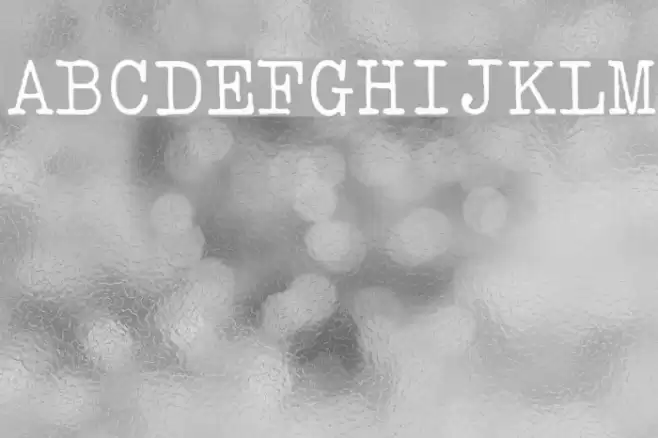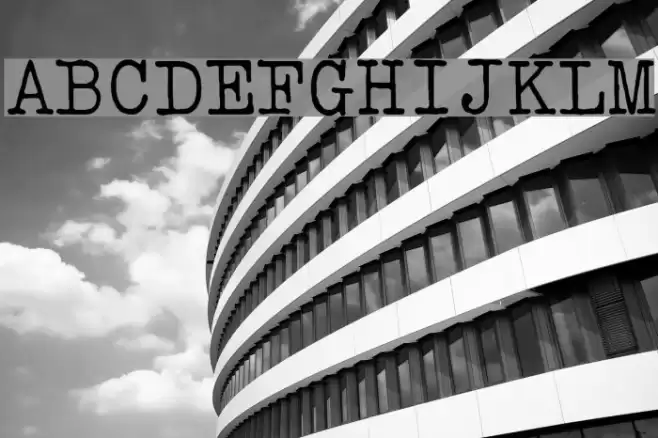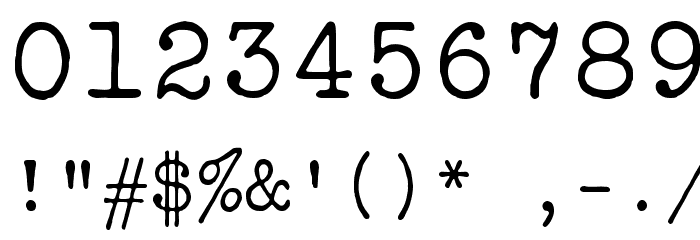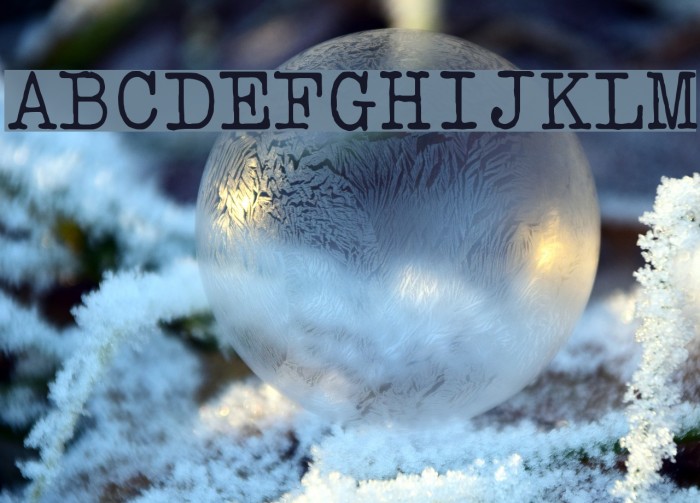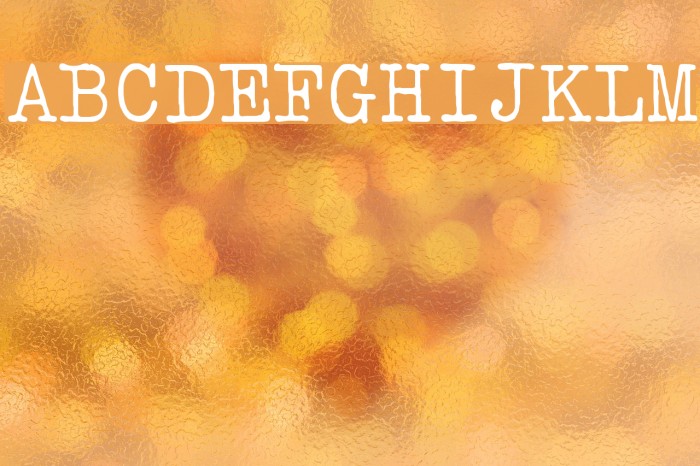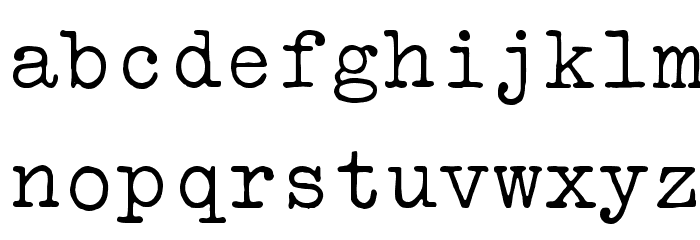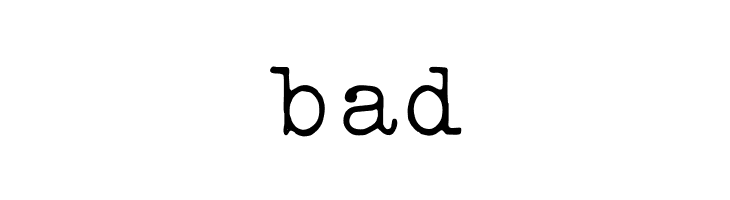
VTBulletin
This typeface features a classic typewriter style with a monospaced design, characterized by uniform character width. The letters exhibit a slightly rough texture, reminiscent of traditional typewriter output, adding a vintage and authentic feel. The uppercase and lowercase letters maintain a consistent height, while the numerals and special characters follow the same monospaced pattern. The font's distinct appearance is enhanced by its slab serif elements, providing a sturdy and robust look. This design is ideal for projects that require a retro or mechanical aesthetic, offering a sense of nostalgia and timelessness.
A vintage typewriter-style monospaced font with slab serif elements.
- Proposed Projects: Ideal for retro-themed designs, typewriter simulations, coding displays, and vintage posters.